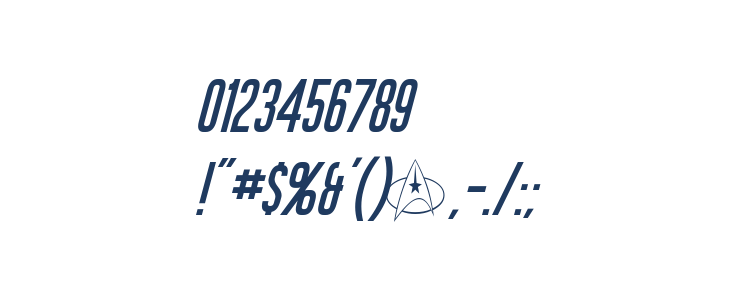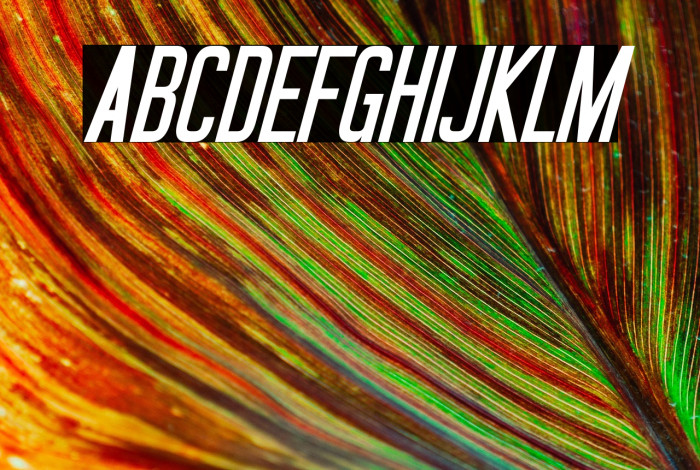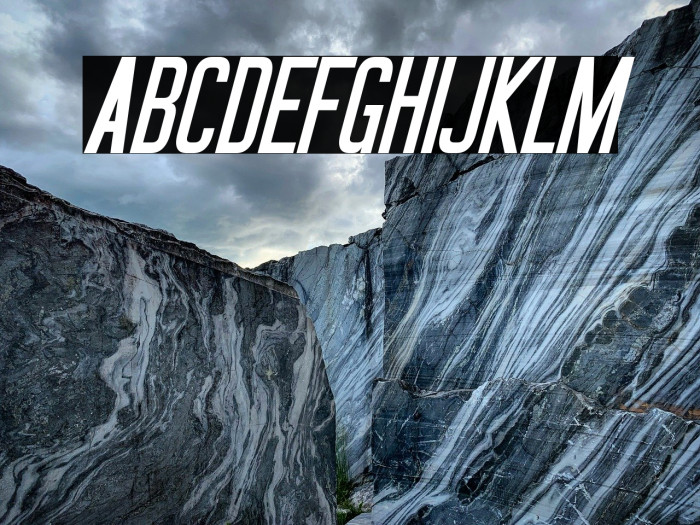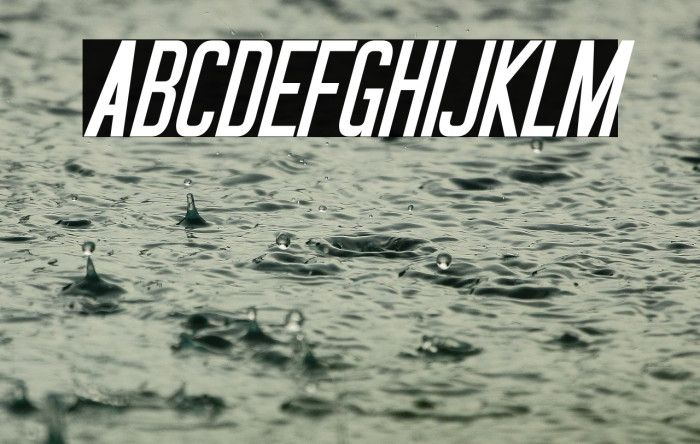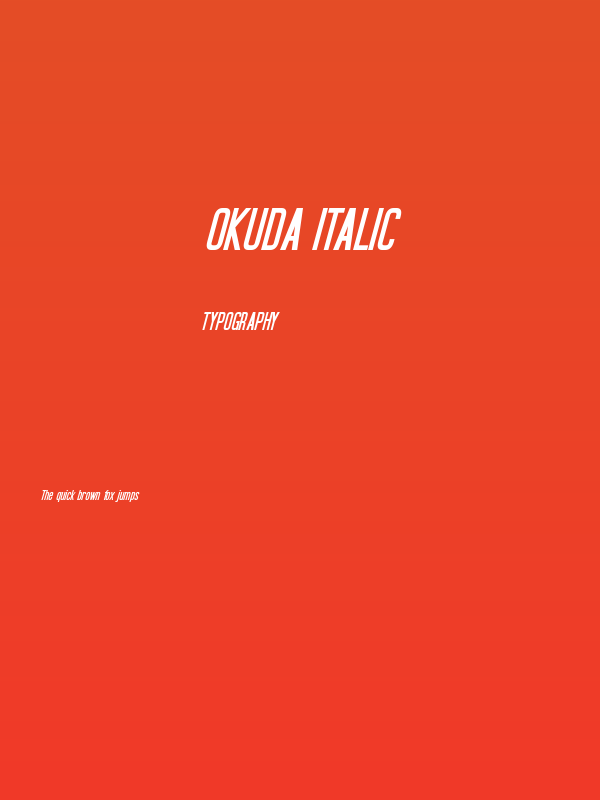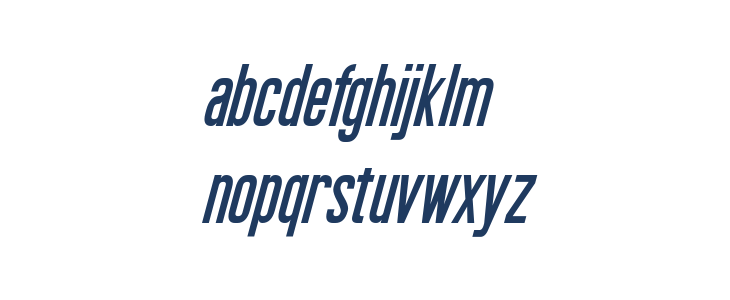
Okuda Italic Font
Okuda Italic Description
This font features a dynamic and modern italic style, characterized by its forward-leaning posture and sharp, clean lines. The uppercase and lowercase letters maintain a consistent slant, creating a sense of motion and energy. The numerals and special characters are designed with the same angular precision, ensuring uniformity across all glyphs. The font's bold appearance is enhanced by its medium contrast, where the stroke thickness varies slightly to add depth without compromising readability. This typeface is ideal for projects that require a contemporary and assertive look.
| Proposed Projects | Ideal for branding, advertising, sports team logos, and dynamic headlines. |